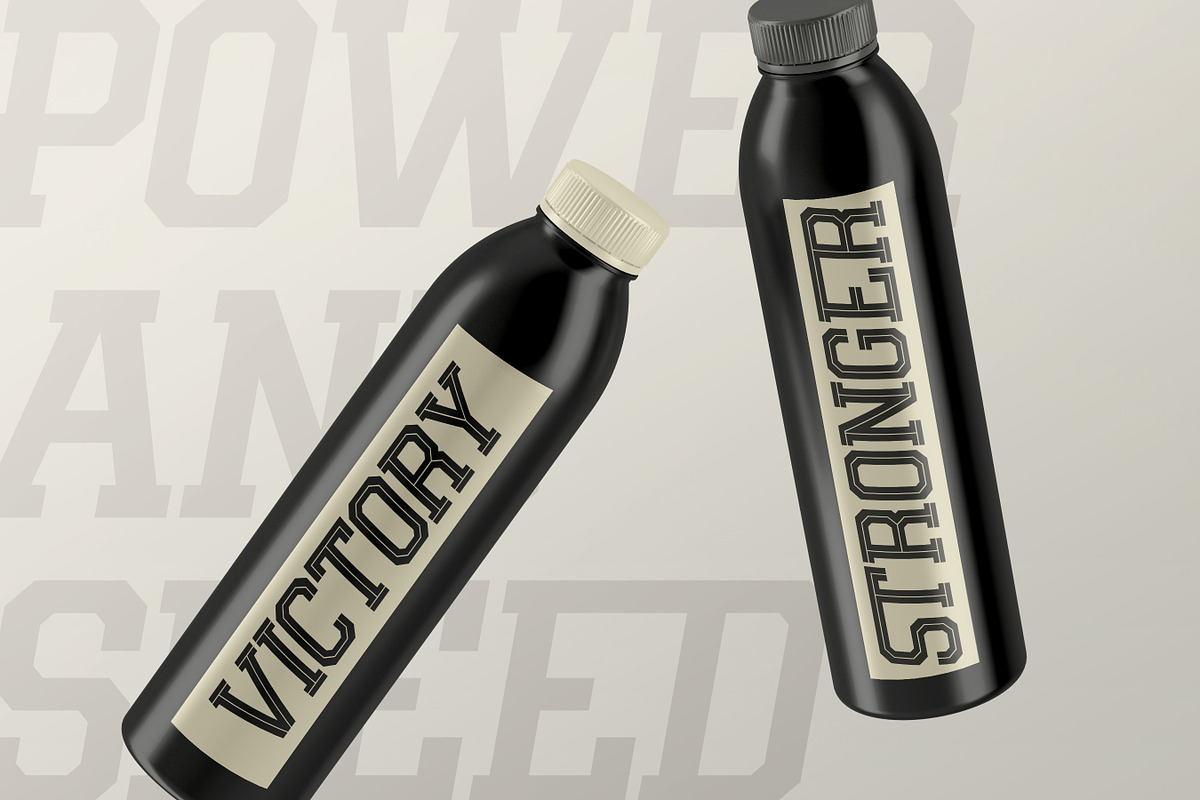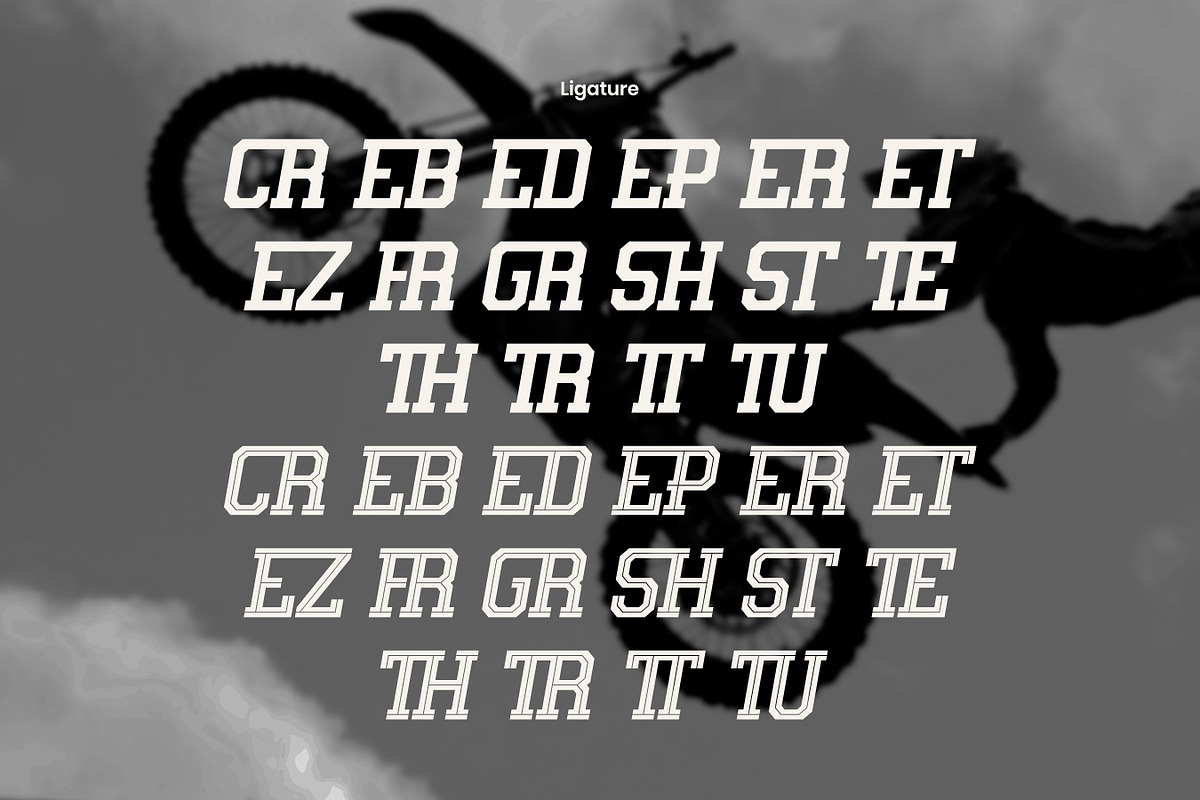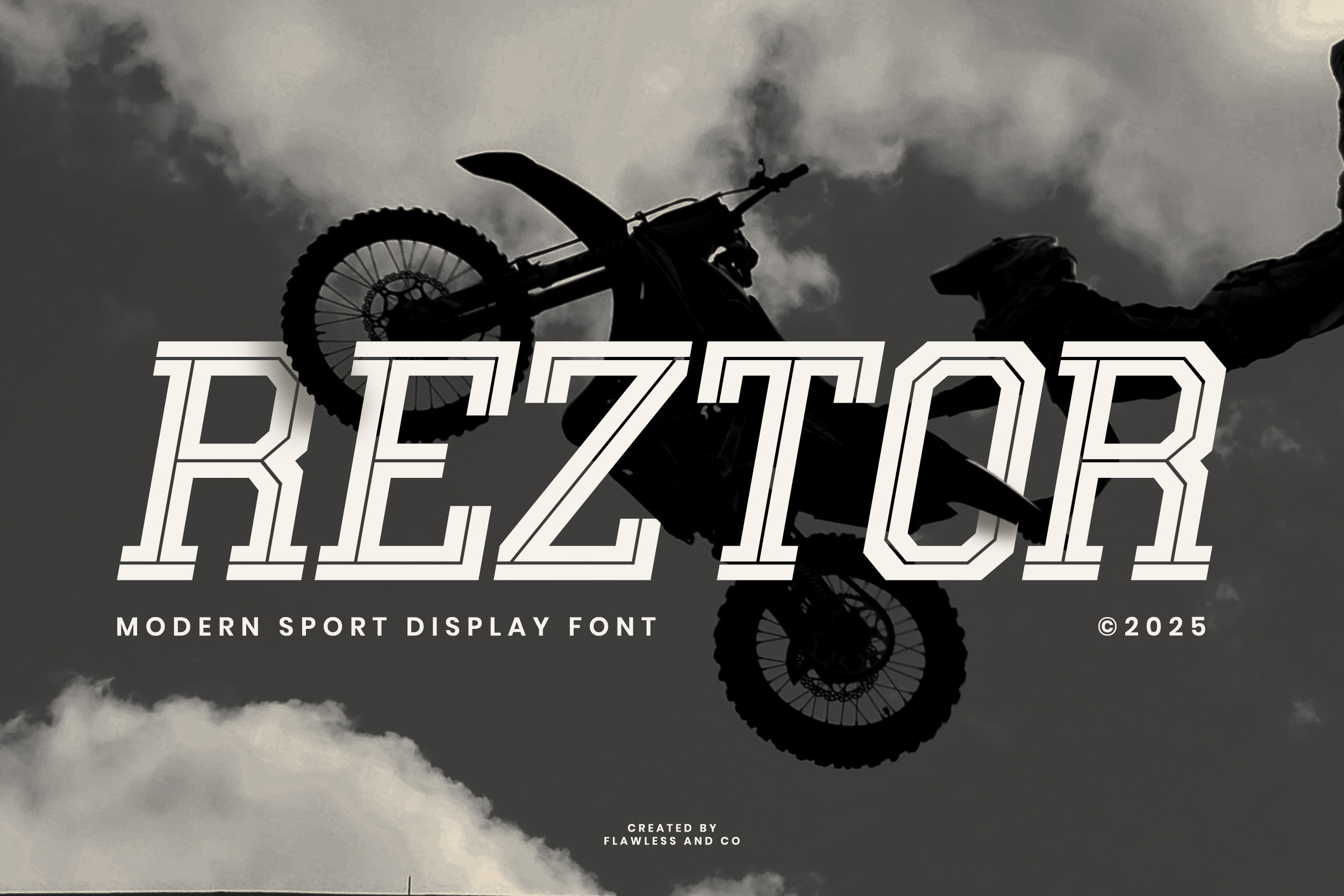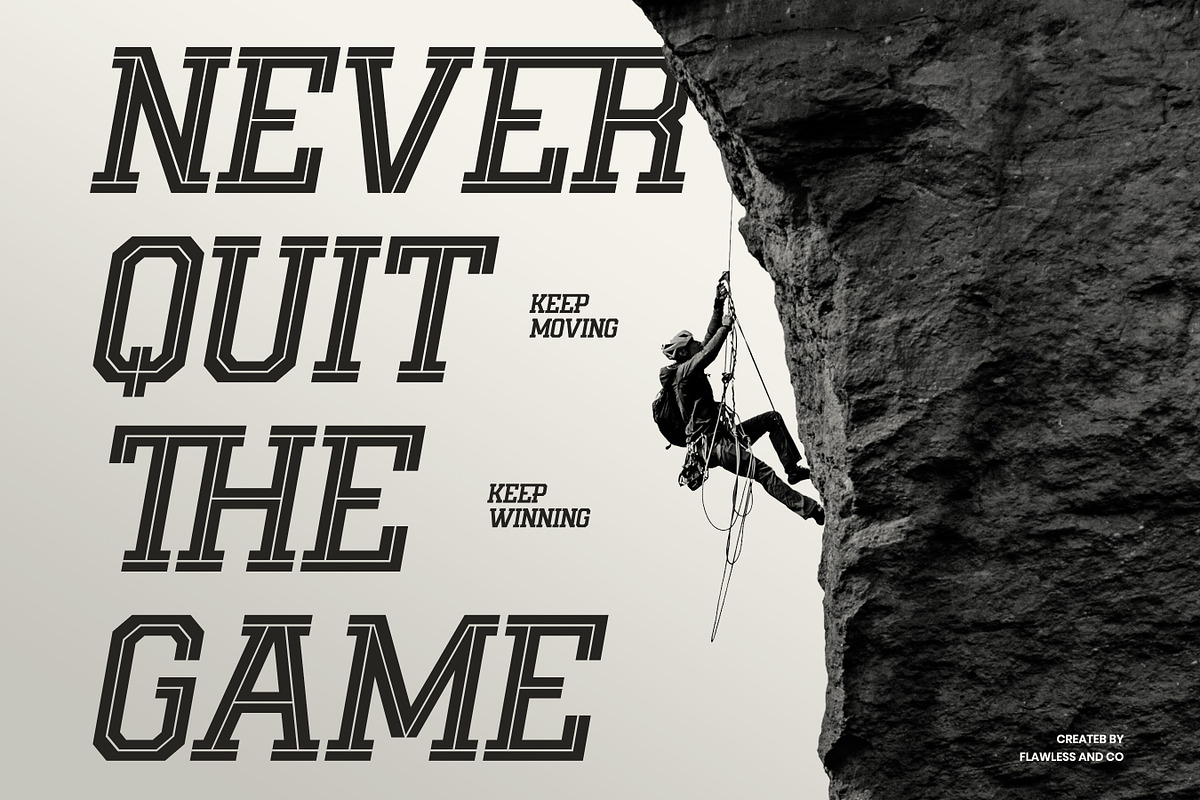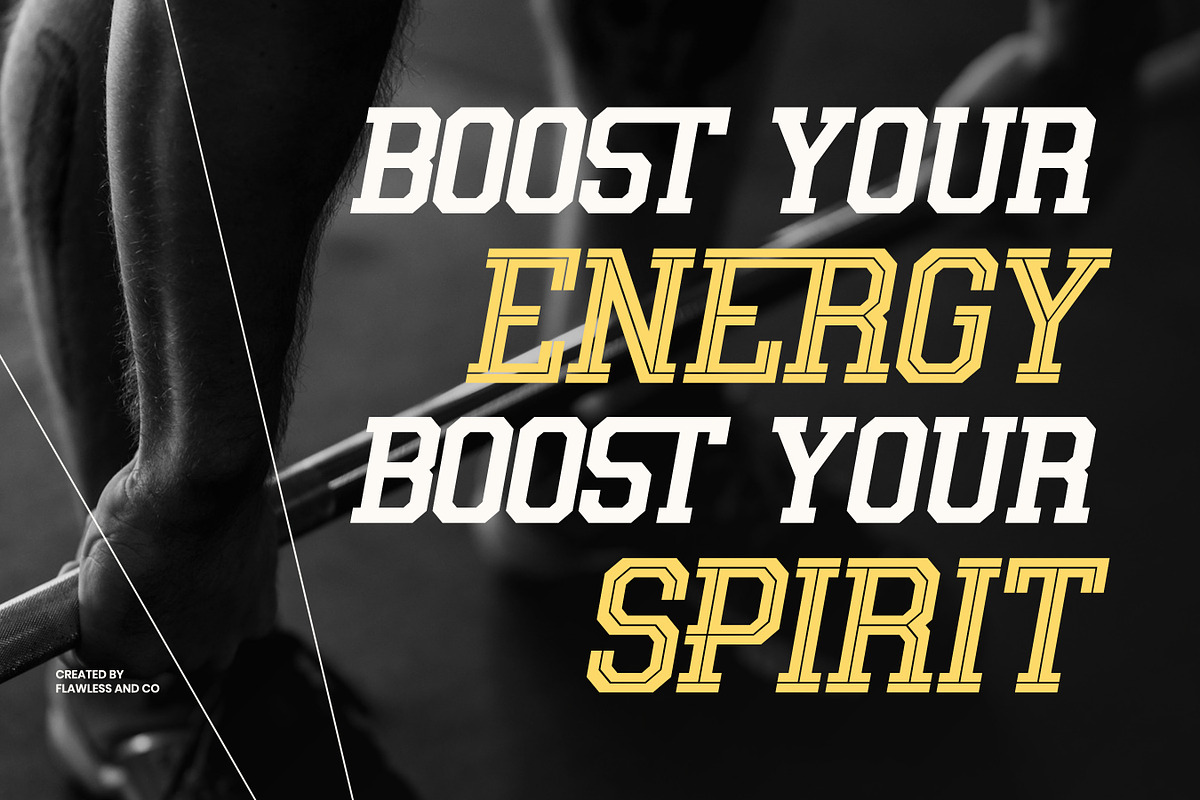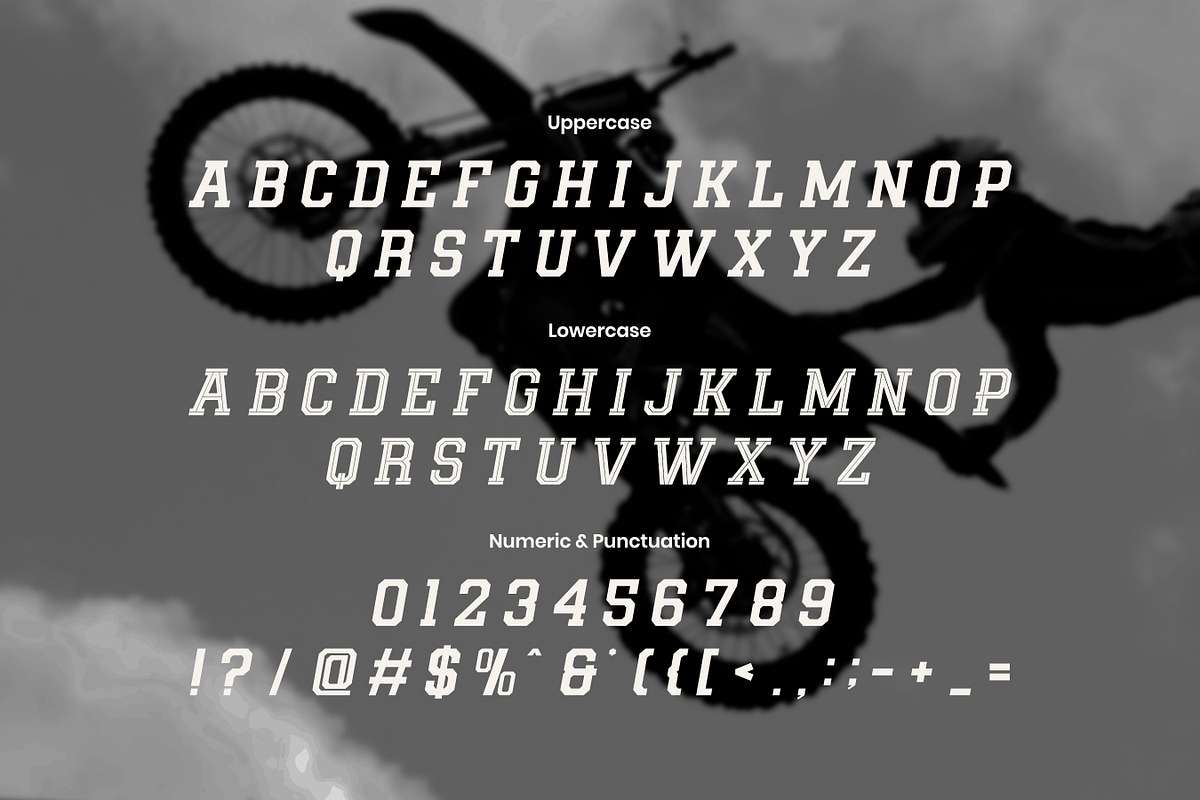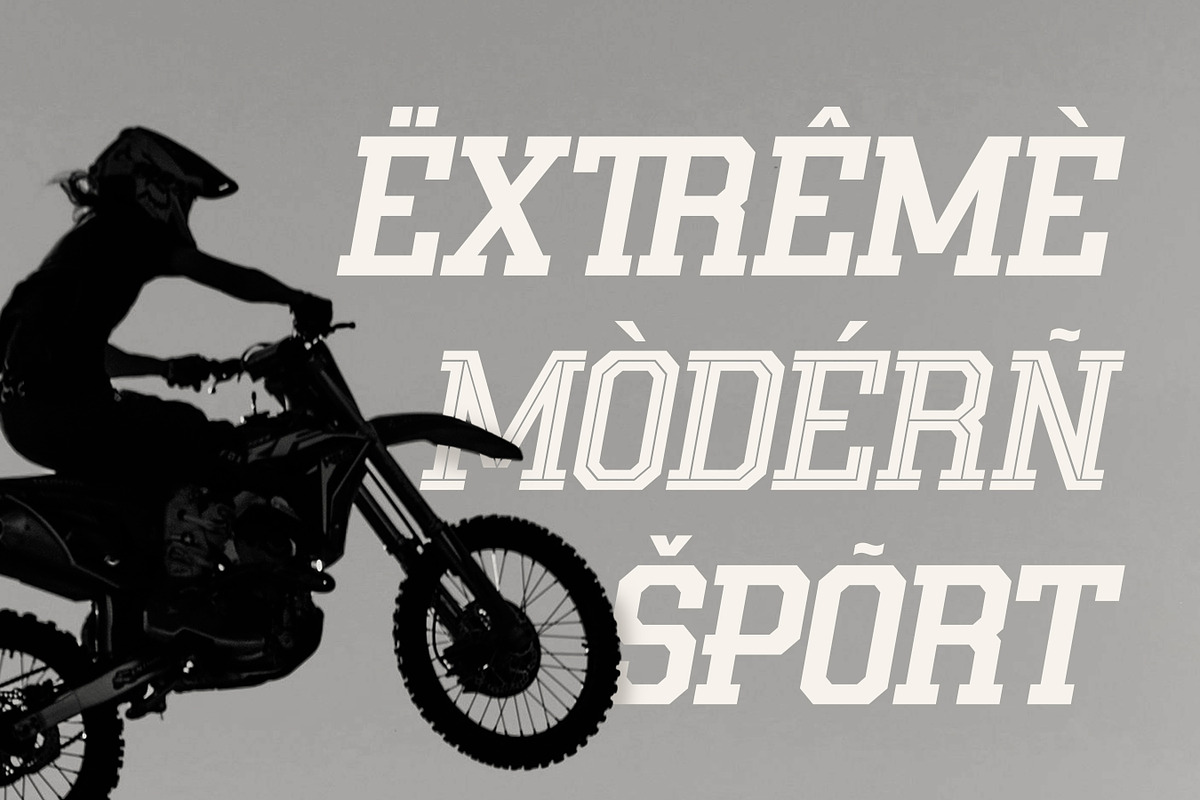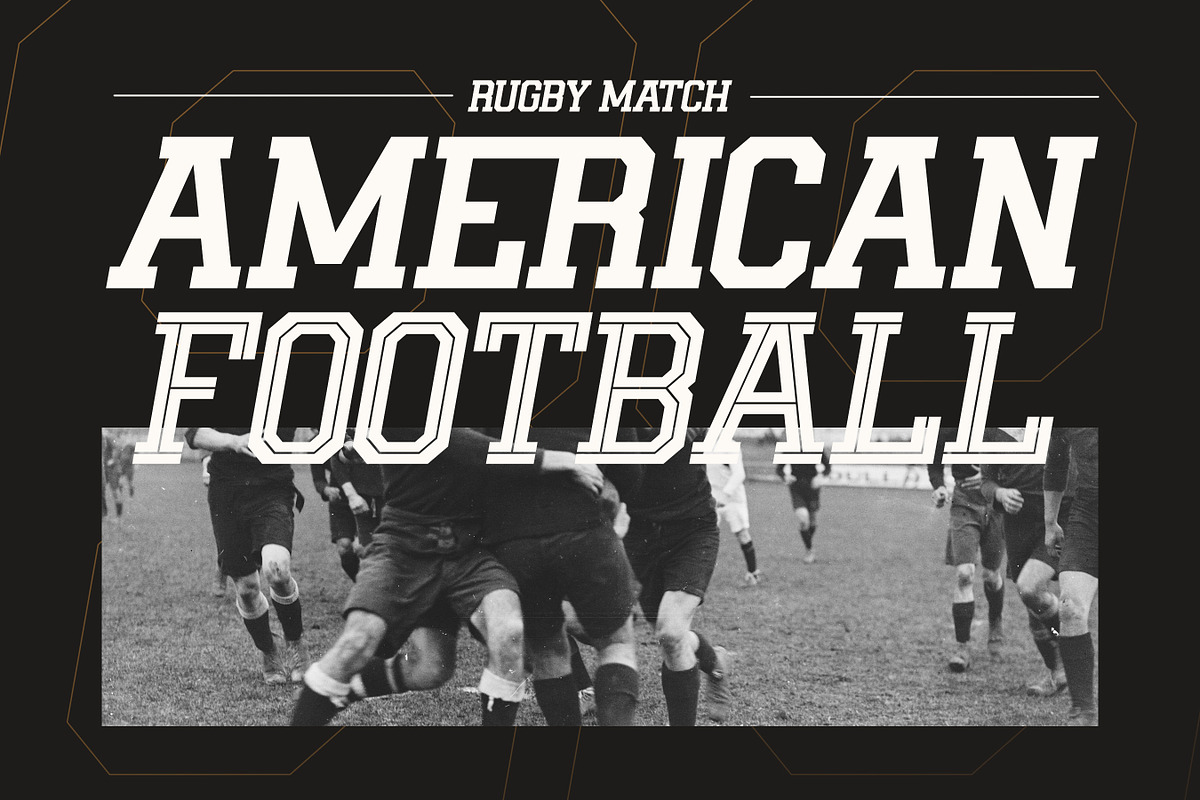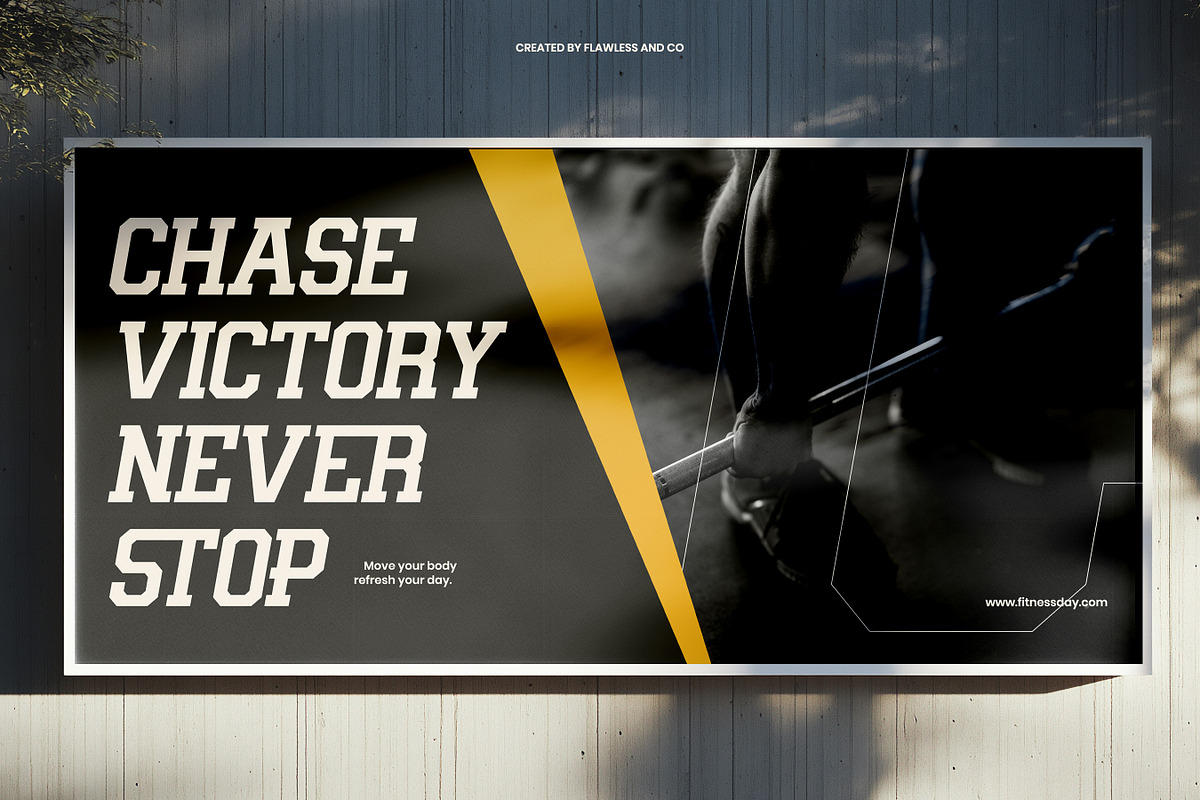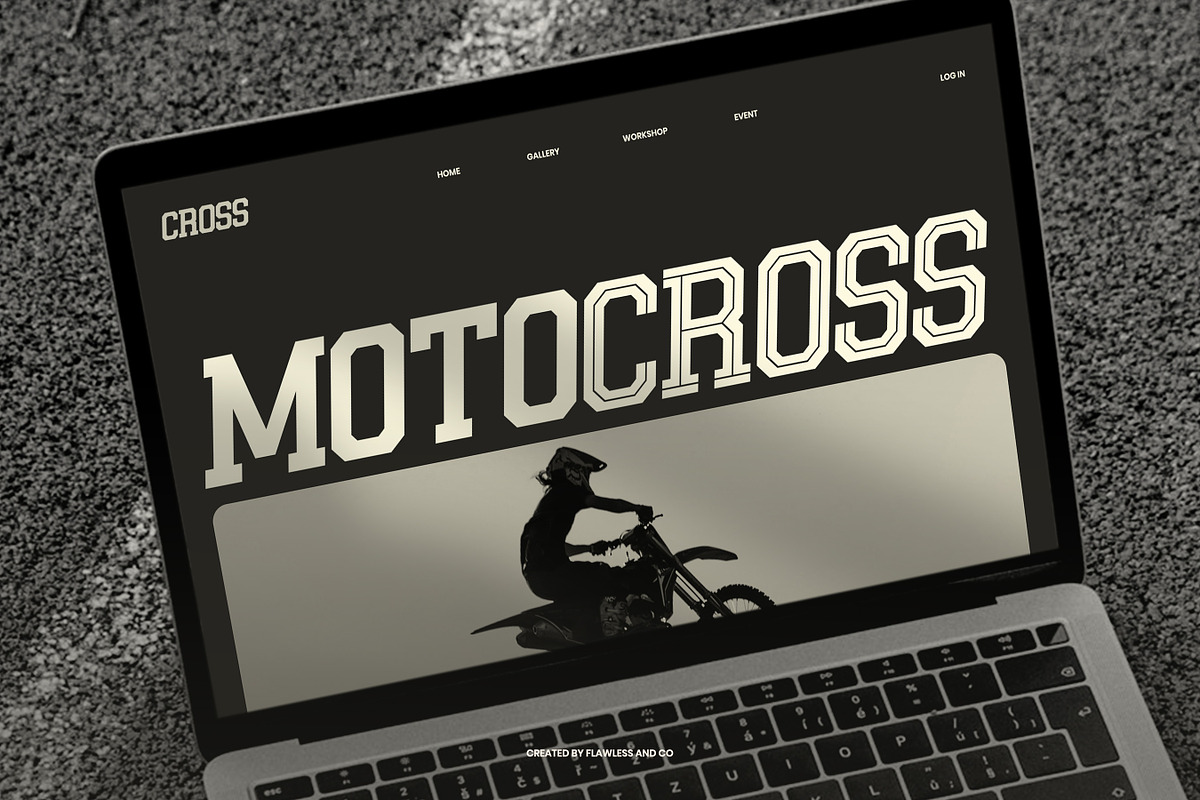
Reztor - Modern Sport Display Font
Reztor is a powerful modern sport display font designed to ignite adrenaline in every design. With its sharp edges, bold structure, and strong angular personality, Reztor captures the spirit of competition, movement, and victory. Every letter is crafted to deliver intensity and performance, making it perfect for visuals that demand impact and confidence.
Who Should Use Reztor?
Reztor is made for designers and creators who want to inject pure energy, confidence, and competitive spirit into their visuals. It’s the perfect choice for anyone who works in the worlds of sports, action, and high-impact branding — from professional graphic designers to creative entrepreneurs building bold identities. If your project needs a font that delivers speed, strength, and adrenaline, Reztor is the one.
A Must-Have Font for Brand and Logo Creators and Designers
Reztor is the kind of font that instantly elevates a visual identity with unstoppable impact. Its strong sport-inspired structure, sharp edges, and high-energy character make it a powerful weapon for branding experts and logo creators who want to build designs that look dominant, memorable, and built for victory. Whether you're crafting a team emblem, competitive brand, or modern sports merchandise, Reztor ensures your logo stands out — bold, fearless, and full of adrenaline.
Why Choose Reztor for Brand and Logo Projects?
Reztor is designed to deliver maximum visual dominance — the kind of typography that instantly communicates power, precision, and competitive confidence. Its modern sporty construction makes every lettering feel fast, aggressive, and energetic, ensuring your logo or branding doesn’t just look good, but looks unstoppable.
Suitable For
Reztor is highly versatile and ideal for projects that need a bold, sporty, and performance-driven look, including:
- Sport and fitness branding
- Athletic team logos and identities
- Energy drink or supplement packaging
- YouTube thumbnails and content for fitness creators
- Racing and automotive designs
- Gaming and esports team branding